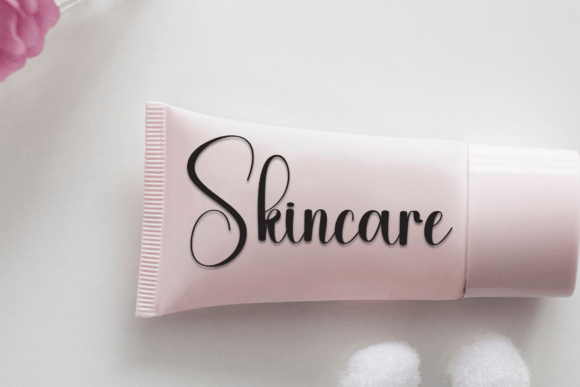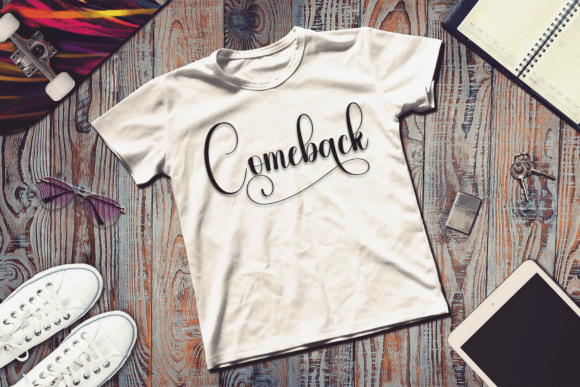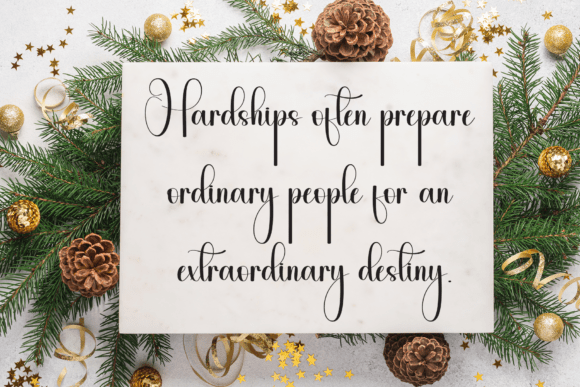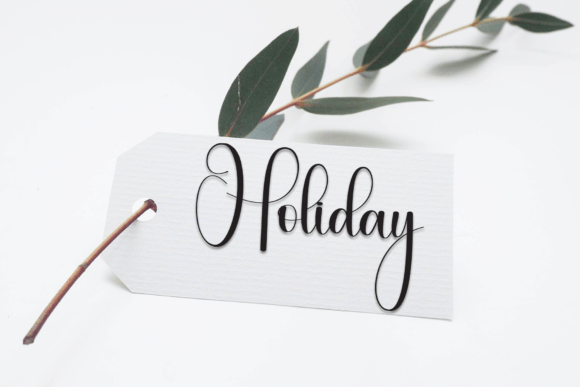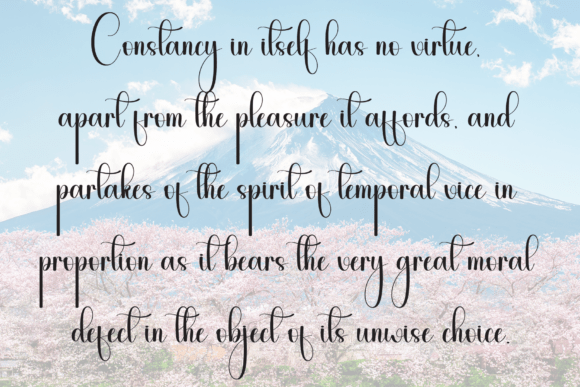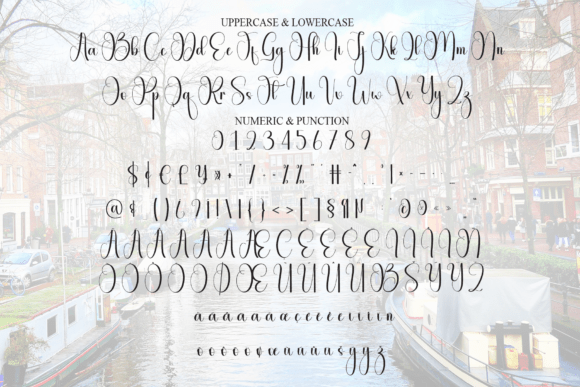
Introducing Amsterdam Font: Elevate Your Designs with Elegance and Playfulness
Are you on the hunt for a font that can add a touch of modern sophistication and whimsy to your designs? Look no further than the Amsterdam Font. This stylish handwritten script font is perfect for designers and crafters who want to bring a personal feel to their work. With its fluid strokes and charming curves, Amsterdam Font is ideal for a wide range of design projects, from logos and packaging to invitations and more.
The Characteristics of Amsterdam Font
Amsterdam Font boasts a unique blend of modern elegance and playfulness. Its fluid strokes and charming curves give it a distinctly personal feel that’s perfect for designs that require a touch of warmth and sophistication. The font’s hand-drawn nature gives it a organic, human feel that’s sure to capture the attention of your audience.
Why Choose Amsterdam Font?
So why choose Amsterdam Font for your next design project? Here are just a few reasons why this font stands out from the crowd:
- Unique and Versatile: Amsterdam Font is a one-of-a-kind typeface that’s versatile enough to be used in a wide range of design projects. Whether you’re creating a logo, packaging, or invitation, this font is sure to make your design stand out.
- Modern Elegance: With its fluid strokes and charming curves, Amsterdam Font brings a touch of modern elegance to any design. Its sophisticated feel is perfect for brands that want to appear upscale and refined.
- Playful Touch: But Amsterdam Font isn’t just elegant – it’s also playful. Its hand-drawn nature gives it a whimsical feel that’s perfect for designs that require a touch of personality.
- Easy to Read: Despite its elegant and playful feel, Amsterdam Font is easy to read, even in smaller sizes. This makes it perfect for designs that require a lot of text, such as packaging or invitations.
Using Amsterdam Font in Your Designs
So how can you use Amsterdam Font in your designs? Here are a few ideas to get you started:
- Logos: Amsterdam Font is perfect for creating unique and memorable logos that stand out from the crowd. Its elegant and playful feel makes it ideal for brands that want to appear sophisticated and refined.
- Packaging: Add a touch of elegance and whimsy to your packaging with Amsterdam Font. Its fluid strokes and charming curves make it perfect for labels, tags, and other packaging materials.
- Invitations: Make your invitations stand out with Amsterdam Font. Its playful and elegant feel makes it perfect for weddings, parties, and other special events.
Tips for Getting the Most Out of Amsterdam Font
Here are a few tips for getting the most out of Amsterdam Font:
- Experiment with Different Sizes: Amsterdam Font looks great in a wide range of sizes, from small and delicate to large and bold. Experiment with different sizes to find the one that works best for your design.
- Pair it with Other Fonts: Amsterdam Font pairs well with a wide range of other fonts, from sans-serif typefaces to serif fonts. Experiment with different pairings to find the one that works best for your design.
- Use it in Combination with Images: Amsterdam Font looks great in combination with images, particularly those with a natural or organic feel. Experiment with different image pairings to find the one that works best for your design.
In conclusion, Amsterdam Font is a stylish handwritten script font that’s perfect for designers and crafters who want to add a touch of modern elegance and playfulness to their designs. Its fluid strokes and charming curves make it ideal for a wide range of design projects, from logos and packaging to invitations and more. With its unique and versatile feel, Amsterdam Font is sure to become a go-to typeface in your design arsenal.